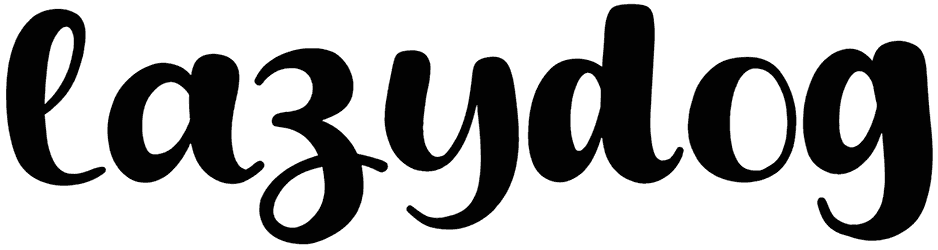
Lazydog Font
How can you ever worry about your text sounding sweet enough when you have numerous options among the honey and bee fonts of RB to try? Lazydog here for instance can ensure your artwork gets plenty of attention.
When a cute font curls as playfully as Lazydog, you won’t get a say in whether you should notice it or not anymore. Before you know it, you’re all concentrated on that specific brand of biscuit, or already inside that accessory shop!